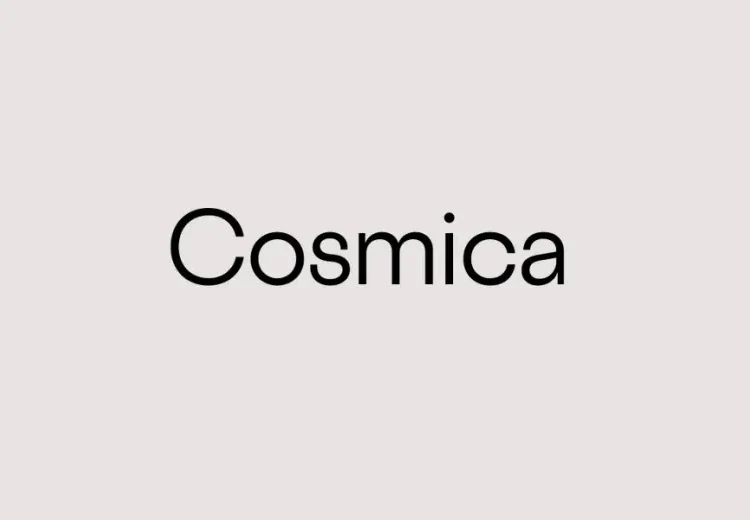
Cosmica Font Family
Cosmica is a distinguished sans-serif font family that balances authority with a sleek, contemporary design. Its geometric lines and horizontal stroke terminals contribute to a clean, modern aesthetic, making it a versatile choice for a wide range of projects. Whether you’re designing for print or screen, Cosmica offers a refined yet impactful visual presence.
This font family is highly adaptable, featuring a broad range of weights to suit various typographic needs. Cosmica includes both tabular and proportional numerals, along with true small caps, enhancing its functionality for both headline and body text. This versatility ensures that Cosmica can handle diverse design requirements, from bold headlines to detailed text content.